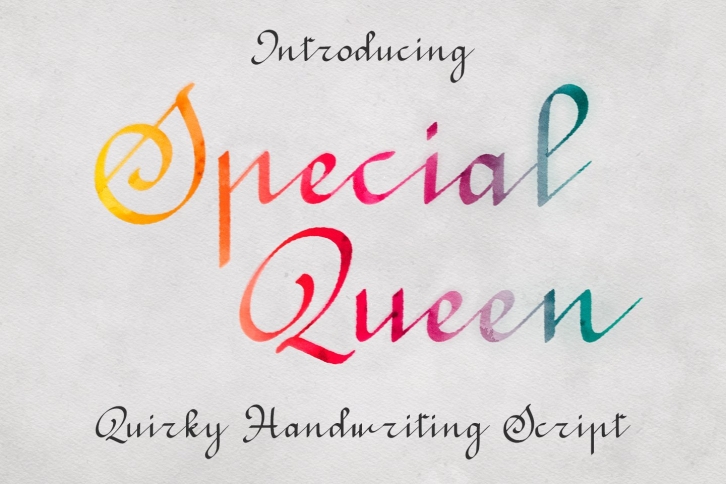
Special Queen is a trendy and unique font with an authentic style. It was designed by Abo Daniel Studio and it's a great choice for creative people who need such a font. It was released on October 27, 2022 and the file size is 21.38 MB. Special Queen will add an organic vibe to any design idea!